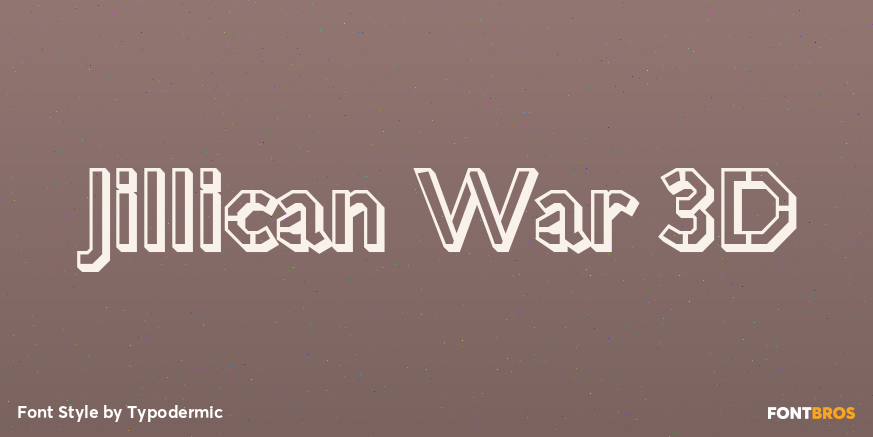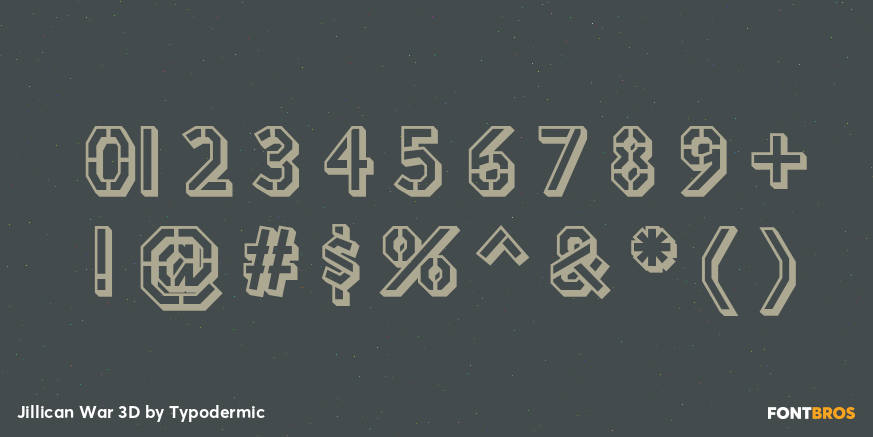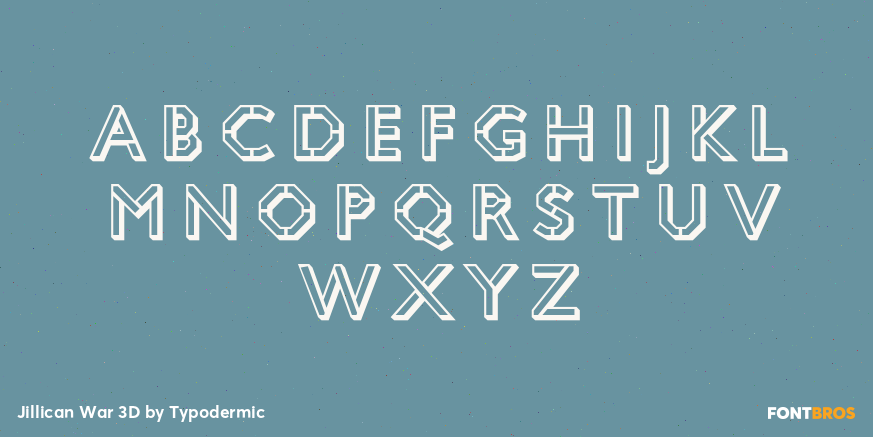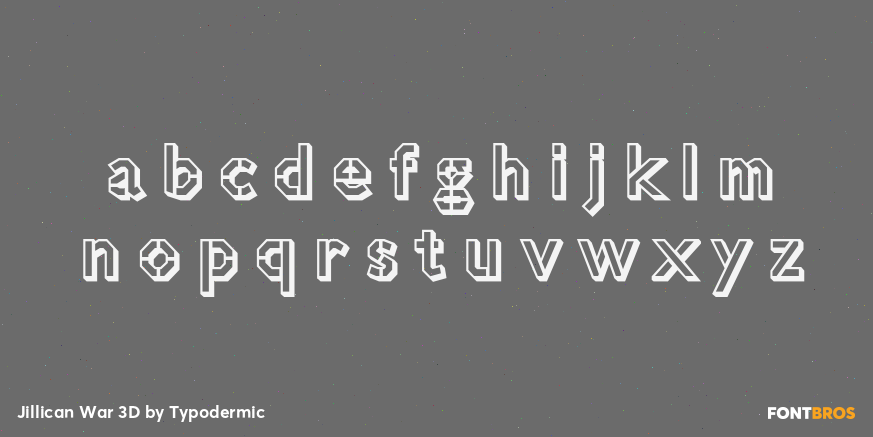
Jillican War 3D
Buy NowJillican War 3D rebuilds the segmented War letterforms as hollow dimensional lettering. Polygonal outlines trace each character while short diagonal facets and inset edges imply thickness, producing a beveled effect within a single font rather than relying on a separate shadow layer. The construction keeps Jillican's clipped, octagonal skeleton visible, but its open interiors and doubled edges make it more decorative and visually active than the filled War style.
Use Jillican War 3D for campaign titles, pack fronts, team graphics, faction emblems, sports launches and large retail displays that need a built-in sense of depth. Its linework remains dimensional in one color and gains extra definition against a contrasting background. Reserve it for large words, initials and numerals, since the interior facets can become crowded at small sizes.